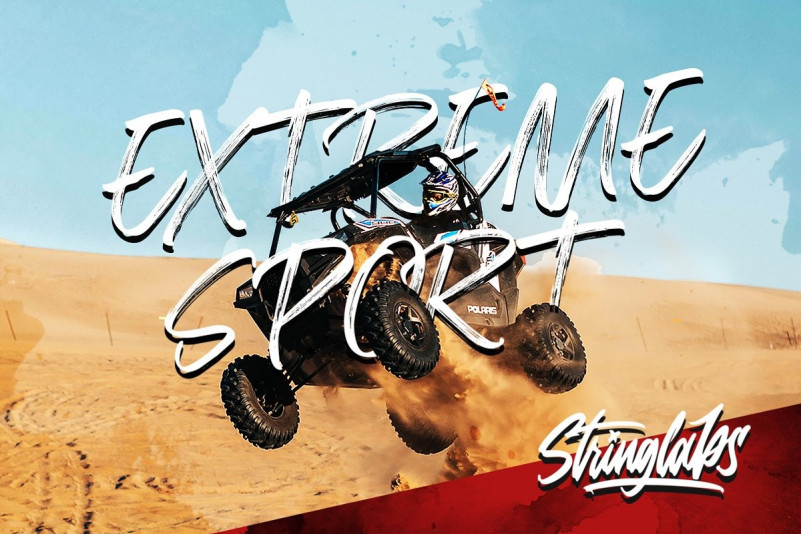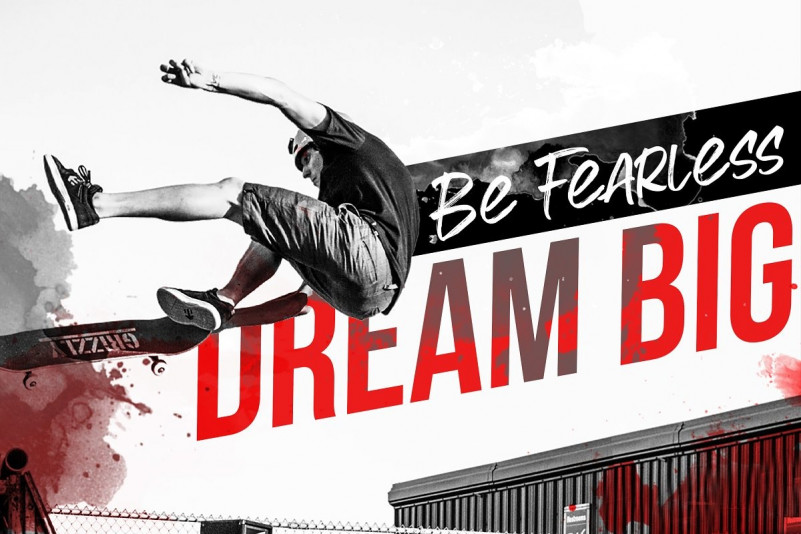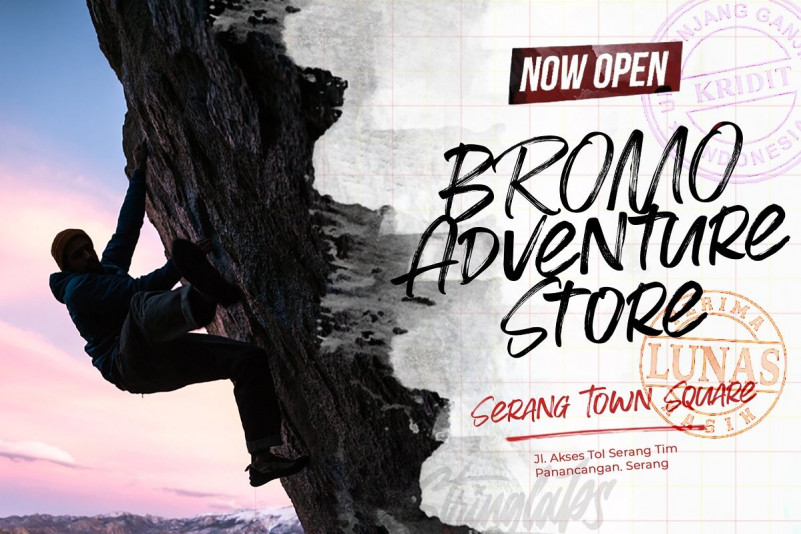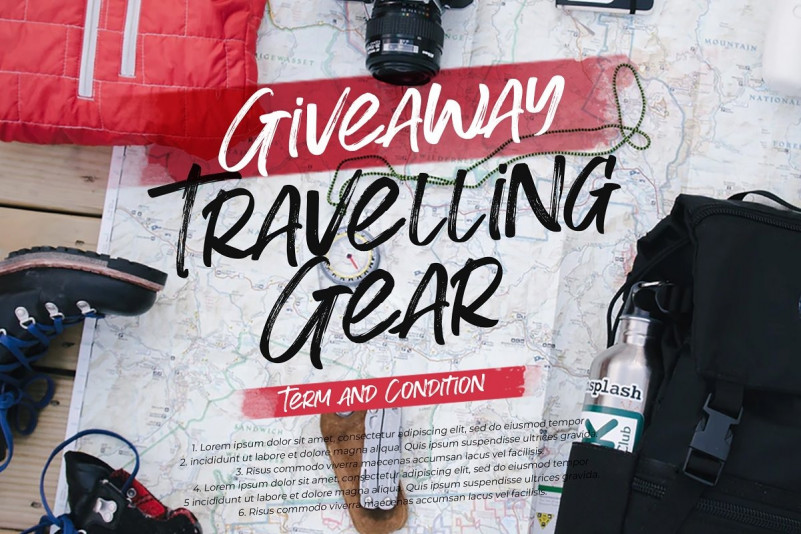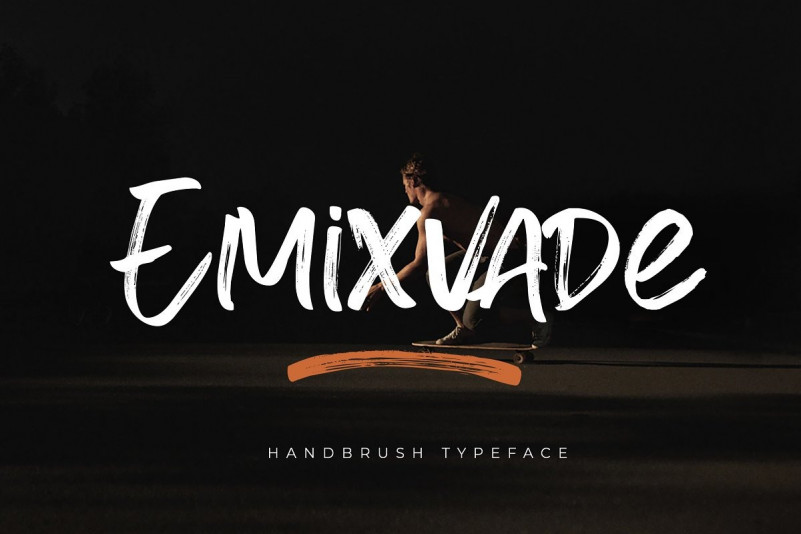
Emixvade Brush Font
Thank you for looking Emixvade Font. This is a hand brush products with extras. Quick dry strokes and a signature style, a rustic, dapper handwritten sag font with a personal charm. Your confidence would be double as much by using this font. It’s a Handbrush Script Font with authentic style. Emixvade Brush is made with a brush pen with very careful techniques, so the results are charismatic and have enchanting characteristics. This Font Template contains Modern, Elegant, Creative, Professional and Unique Concept. Suitable for headings, poster titles, logotypes, signage, packaging and Toska can even be used for interesting paragraphs.